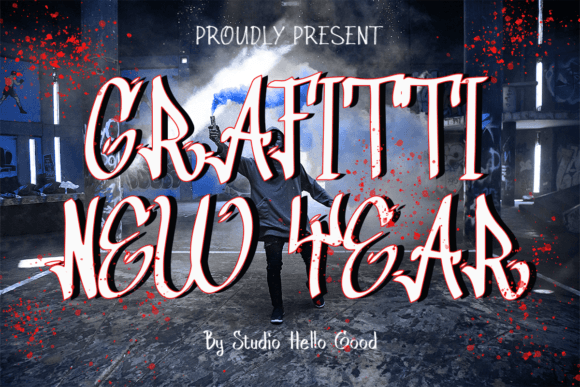
Introducing Graffiti New Year Font: The Ultimate Celebration of Urban Edge and Festive Flair
As we bid adieu to the old and welcome the new, the world comes alive with vibrant colors, dynamic patterns, and an infectious energy that screams celebration. It’s that time of the year again – New Year’s Eve is just around the corner, and with it comes the quest for the perfect design elements to make your party invitations, event posters, and social media graphics stand out. This is where the Graffiti New Year Font comes into play, revolutionizing the way we express our festive spirit with a bold and unconventional twist.
Unleashing the Spirit of Graffiti New Year
Graffiti New Year is not just a font; it’s an experience. It’s a visual embodiment of the raw energy and urban edge that tag graffiti artists bring to the streets. Imagine the bustling city walls adorned with vibrant tags, each telling a story of rebellion, freedom, and artistic expression. Now, translate that into a digital font, and you have Graffiti New Year – a vibrant and expressive typeface that encapsulates the essence of street art with a festive twist.
This font is a fusion of rebellious spontaneity and festive flair, making it the perfect choice for those looking to break free from traditional design norms. Its jagged edges, splatters, and dynamic strokes bring an authentic street vibe to your projects, ensuring that your designs are not just noticed but remembered.
The Aesthetic Appeal of Graffiti New Year
At the heart of Graffiti New Year is its distinctive aesthetic, which blends the unmistakable elements of tag graffiti with the celebratory feel of the New Year. The font features:
- Jagged Edges and Splatters: These elements add a layer of rawness and spontaneity, reminiscent of street art found in urban landscapes.
- Dynamic Strokes: The varying thickness and fluidity of the strokes give the font a lively and energetic feel, perfect for capturing the excitement of New Year’s celebrations.
- Vibrant and Bold: The font comes in bold and vibrant colors, ensuring your designs pop with a festive vibe that’s hard to ignore.
These characteristics make Graffiti New Year an ideal choice for designers aiming to create bold and eye-catching New Year-themed designs that stand out from the crowd.
Applications of Graffiti New Year Font
The versatility of Graffiti New Year Font makes it suitable for a wide range of applications, including:
- Party Invitations: Add a touch of urban edge and excitement to your New Year’s party invites, setting the tone for a memorable celebration.
- Event Posters: Create eye-catching posters for New Year’s events, ensuring they grab attention and create buzz around your party or celebration.
- Social Media Graphics: Elevate your social media posts with a dose of creativity and nonconformity, making your messages stand out in crowded feeds.
- Customized Merchandise: From t-shirts to party hats, Graffiti New Year Font can add a unique and stylish touch to your New Year’s merchandise.
Why Choose Graffiti New Year Font?
In a world where design trends are constantly evolving, Graffiti New Year Font offers a refreshing and impactful way to celebrate the New Year. Here are a few reasons why it stands out:
- Unique and Memorable: The font’s distinctive style ensures your designs are unique and memorable, helping you leave a lasting impression.
- Expressive and Versatile: Graffiti New Year allows for a wide range of creative expression, making it adaptable to various design needs and themes.
- Perfect for Unconventional Designs: For those looking to break away from traditional and generic designs, this font offers the perfect blend of rebellion and festivity.
Tips for Using Graffiti New Year Font
To maximize the impact of Graffiti New Year Font in your designs, consider the following tips:
- Experiment with Colors: While the font comes in vibrant colors, don’t be afraid to experiment with different palettes to match your brand or event theme.
- Combine with Images: Pair the font with relevant images or graphics to enhance the visual appeal and convey your message more effectively.
- Play with Textures: Adding textures can further amplify the street art vibe, giving your designs a more authentic and engaging look.
Graffiti New Year Font is more than just a typeface; it’s a statement. It’s a celebration of the urban edge and the festive spirit of the New Year. With its unique blend of rebellious spontaneity and celebratory flair, this font is set to revolutionize the way we approach New Year designs. Whether you’re a designer looking for a bold statement or an event organizer aiming to create buzz around your party, Graffiti New Year Font is your go-to choice for making a lasting impression.
So, as we step into the new year, let’s embrace the spirit of creativity and nonconformity. Let’s make our designs speak volumes with a touch of urban edge and a whole lot of celebration. Welcome to the world of Graffiti New Year – where every letter tells a story of rebellion, freedom, and festive joy.